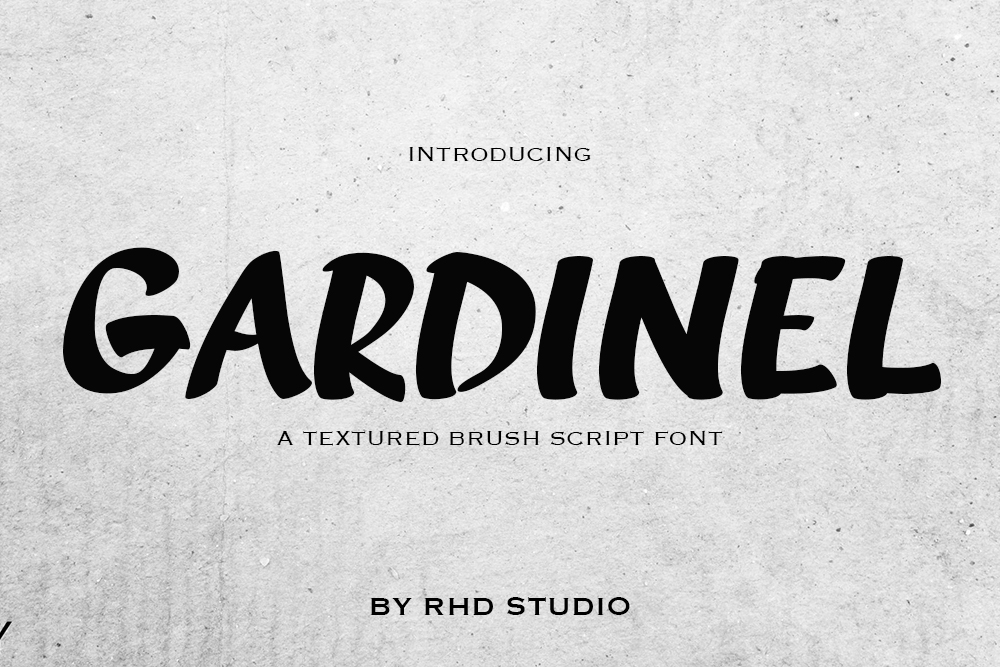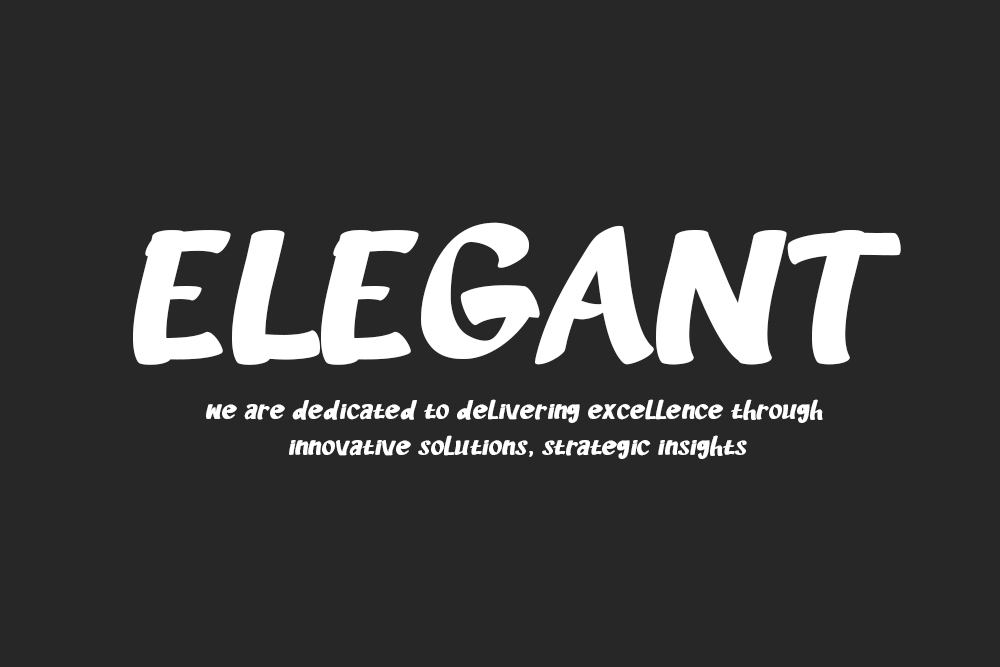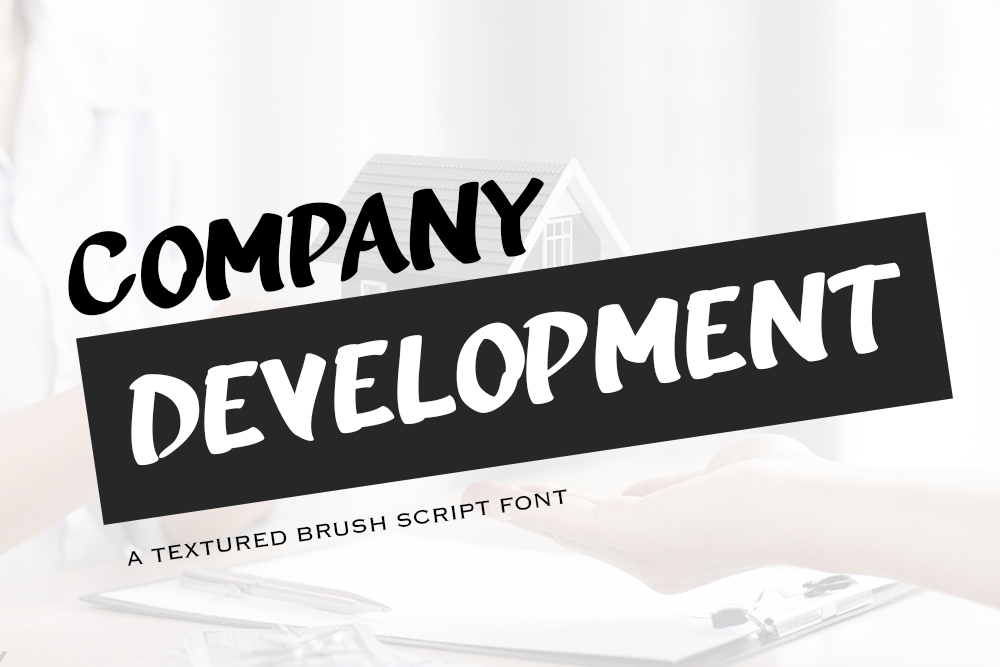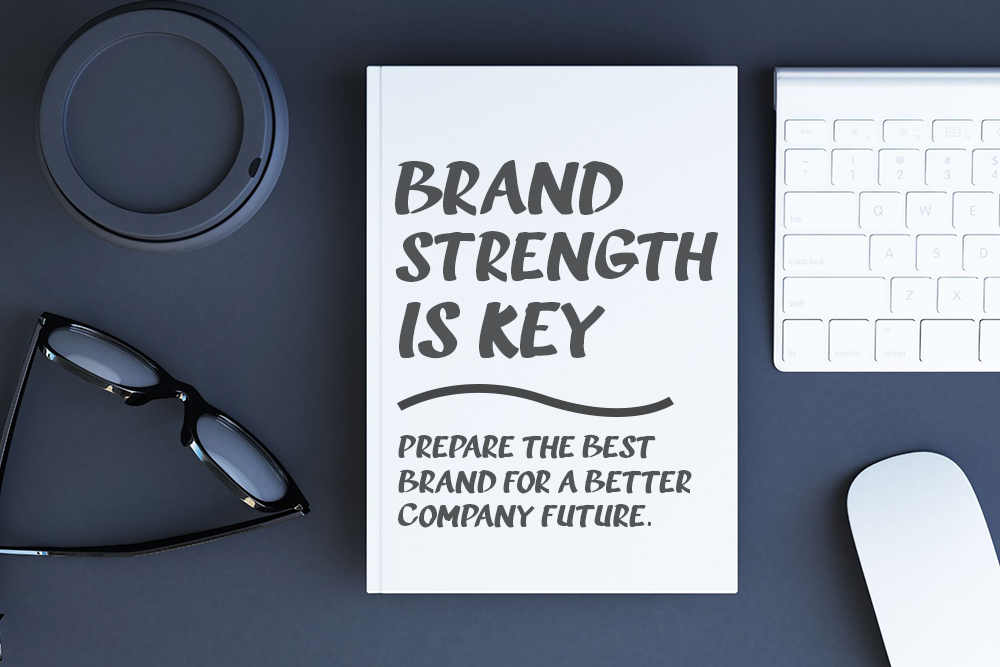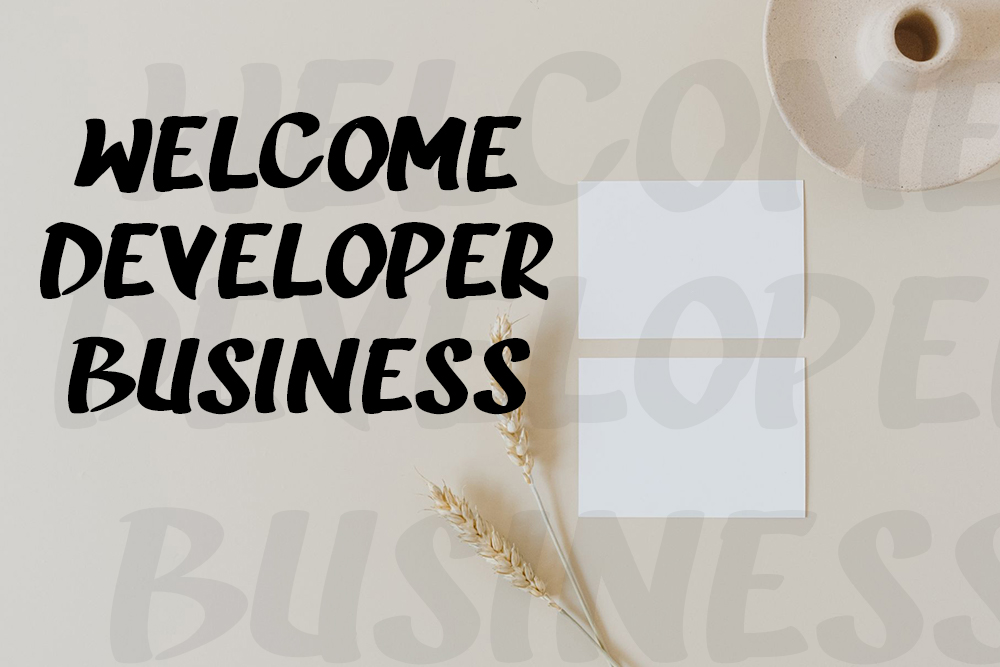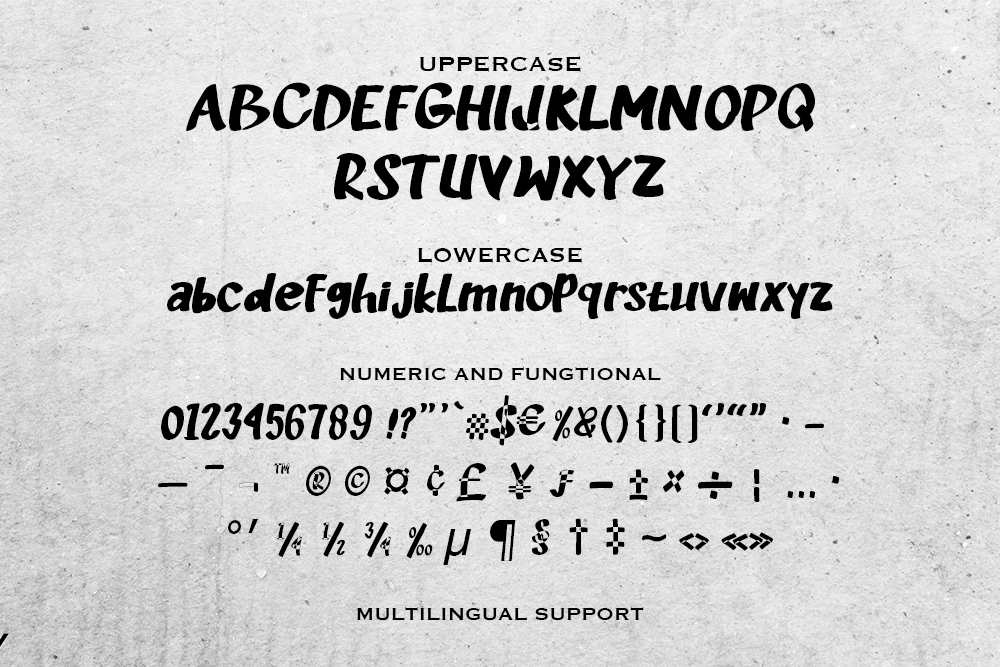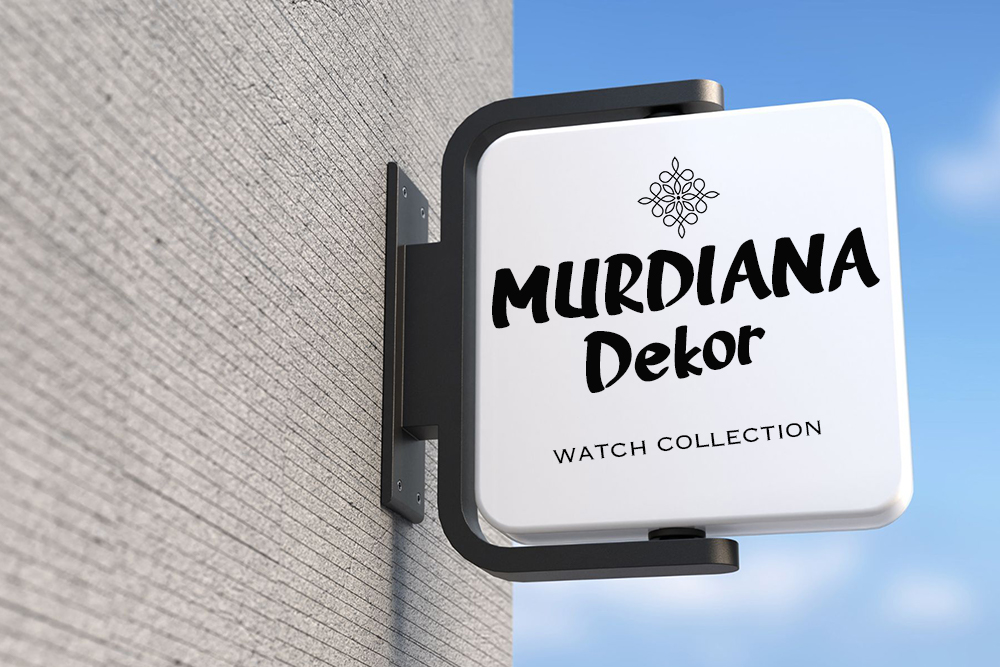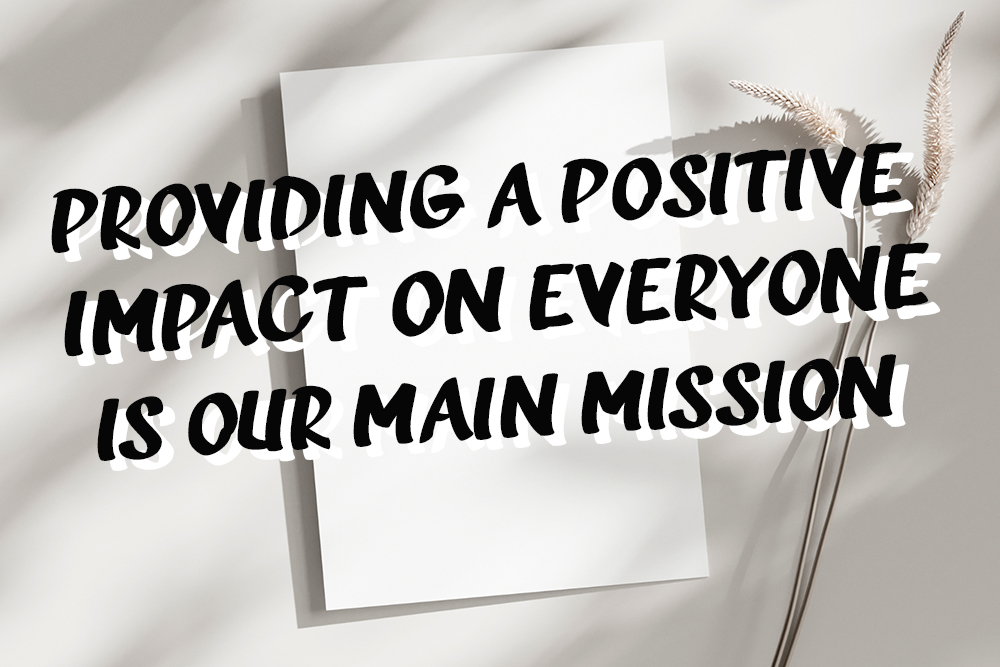
GARDINAL Textured Brush Script Font
Introducing GARDINAL Textured Brush Script
GARDINAL Textured Brush Script is a textured hand brush font. Gardinal Typeface is a flowing and stylish brush font display, created with the help of a pen tablet. Get inspired by her unique and beautiful style and add it to your favorite designs!
– Uppercase and Lowercase letters
– Numbering and Punctuations
– Multilingual Support